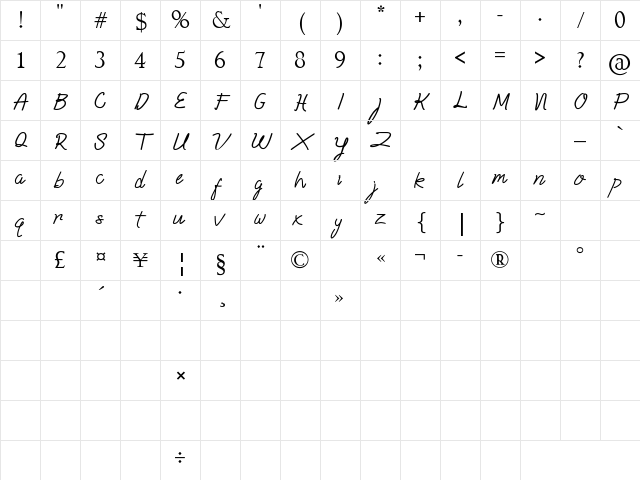
Bella Armanda Regular
Designer: Gigih Wiryana
Design Context for Bella Armanda
Bella Armanda is a composed and adaptable typeface that performs quietly and consistently across a wide range of design contexts.